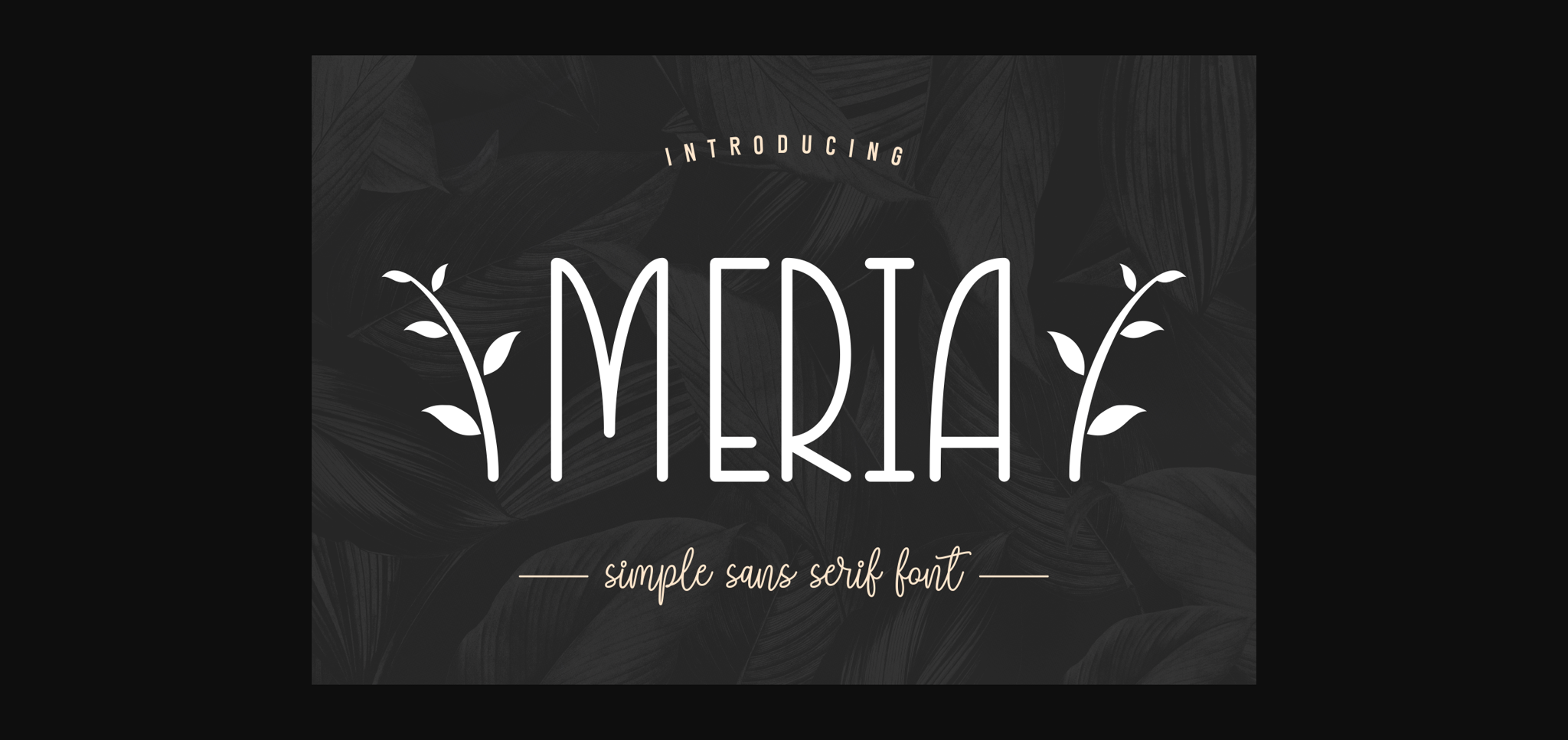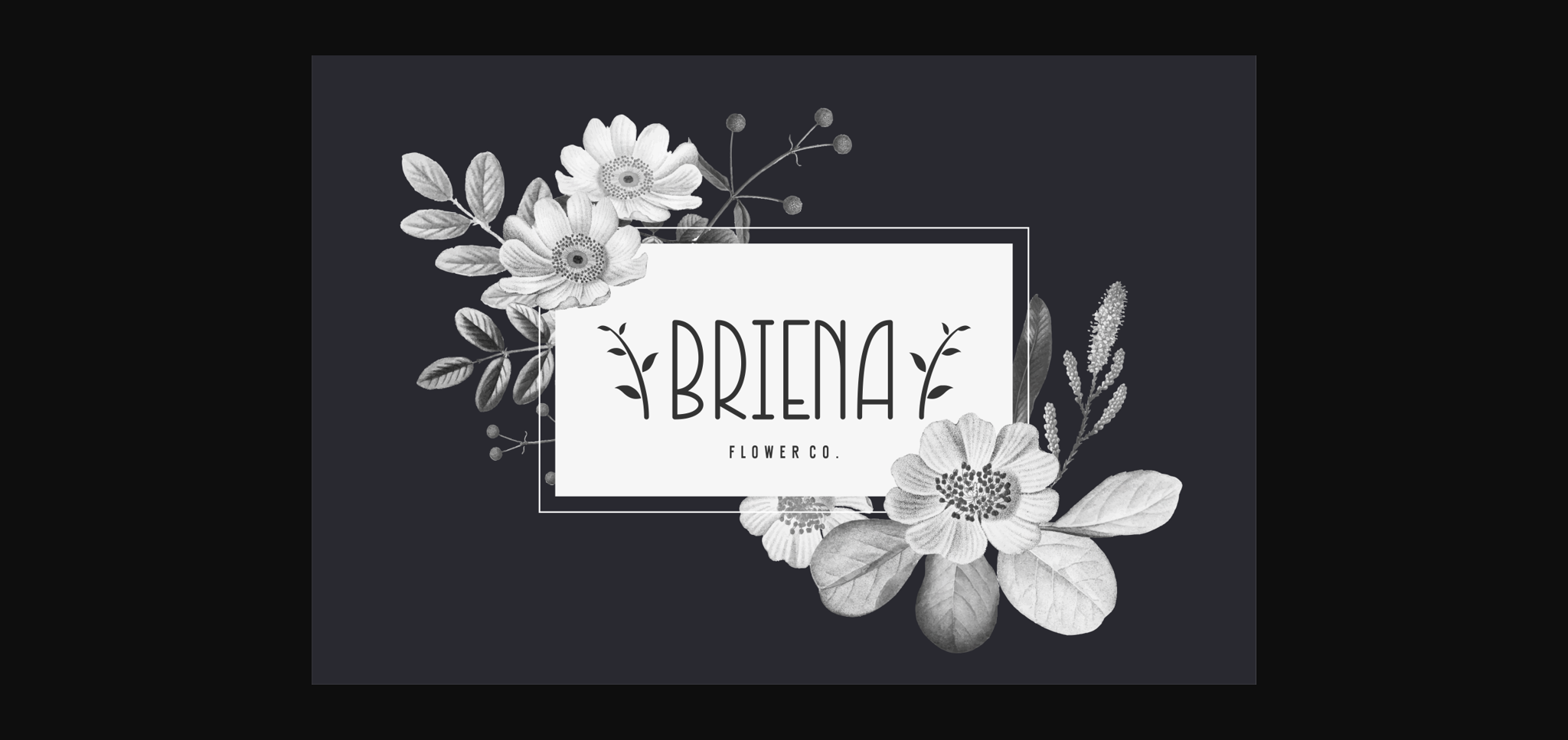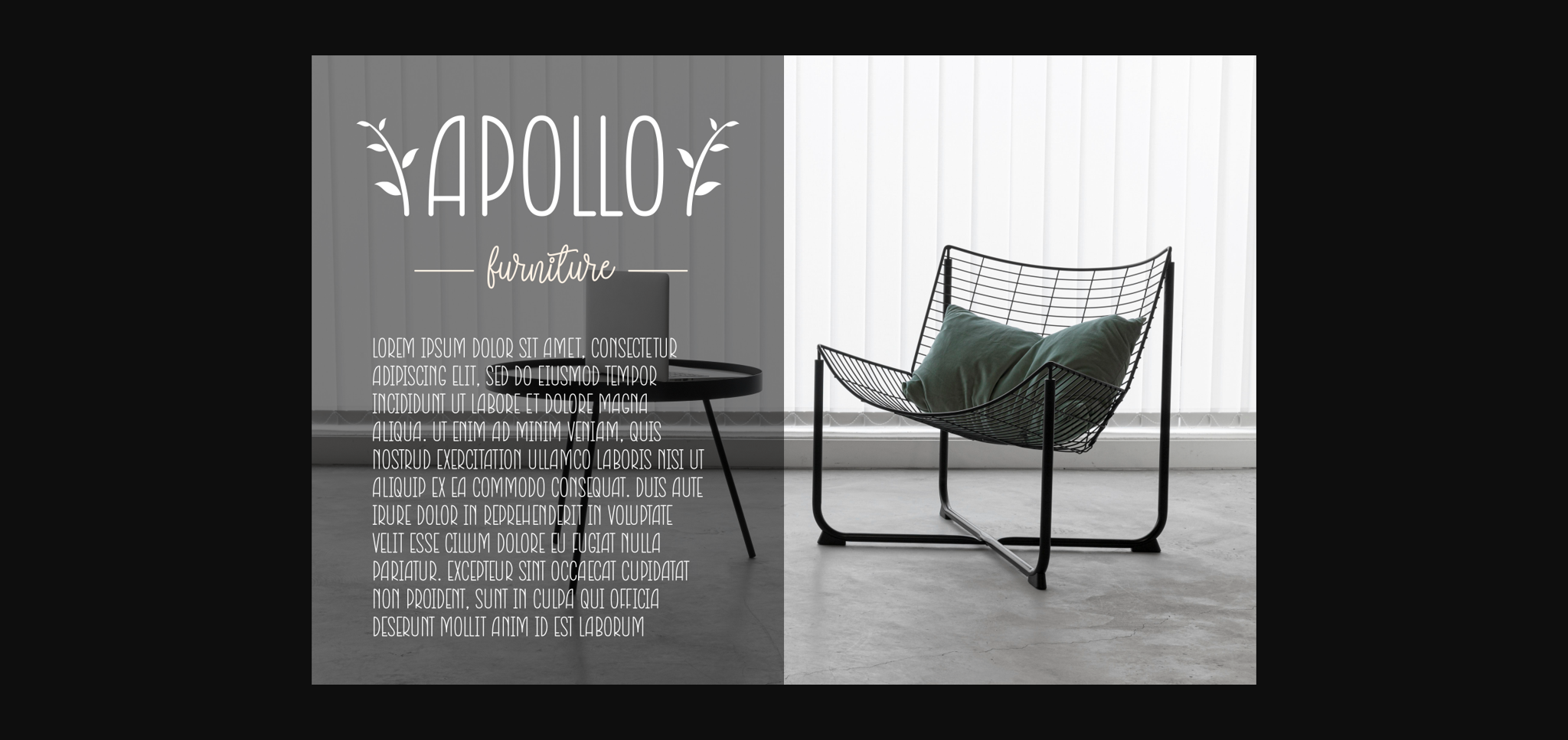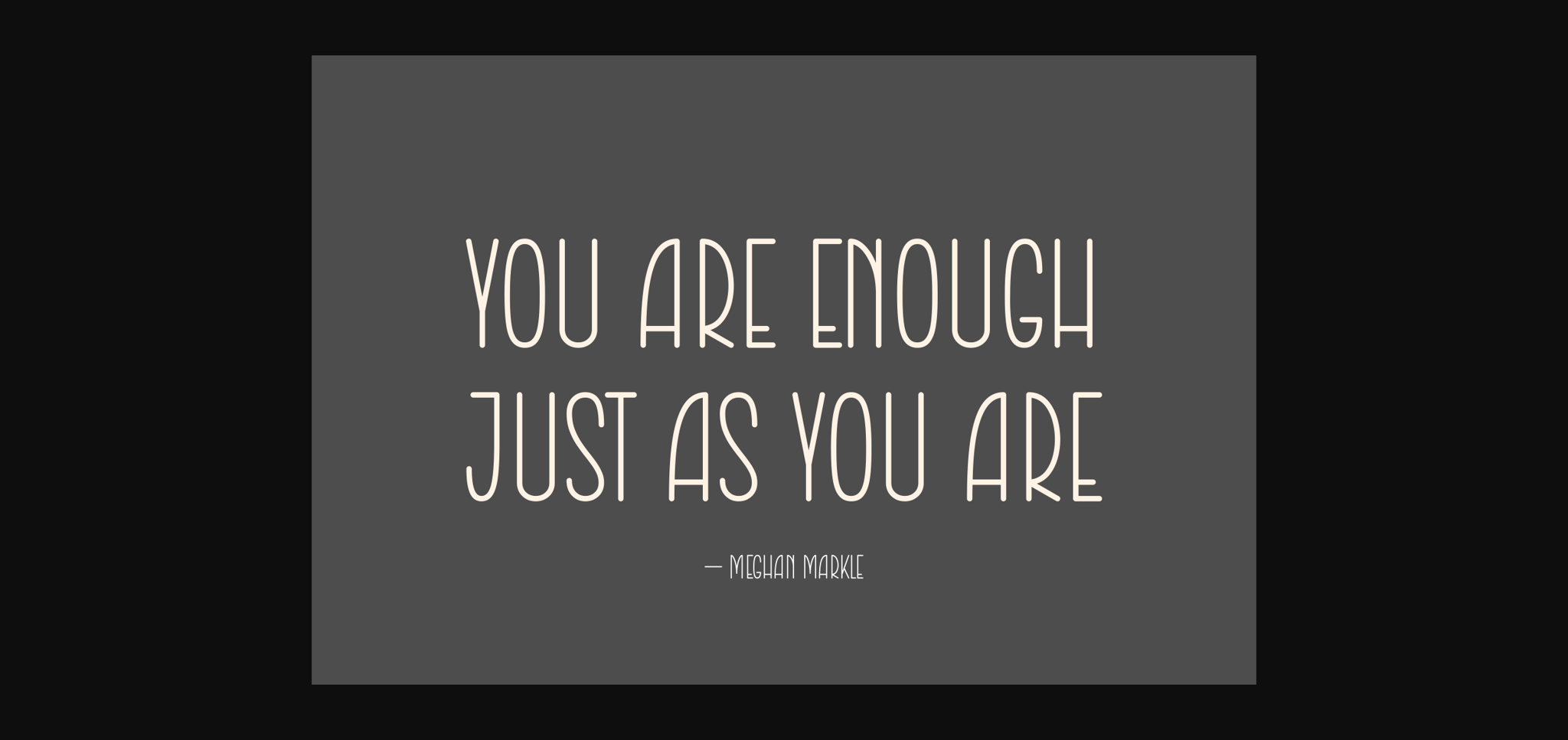
About Meria Font
Meria is a clean and uncomplicated sans-serif font. Its simplicity makes it easy to read and perfect for a variety of projects. With straightforward lines and a modern touch, Meria brings a fresh and contemporary feel to your text. Whether you’re designing a website, poster, or document, Meria adds a touch of clarity and simplicity, ensuring your message is conveyed with style and ease.